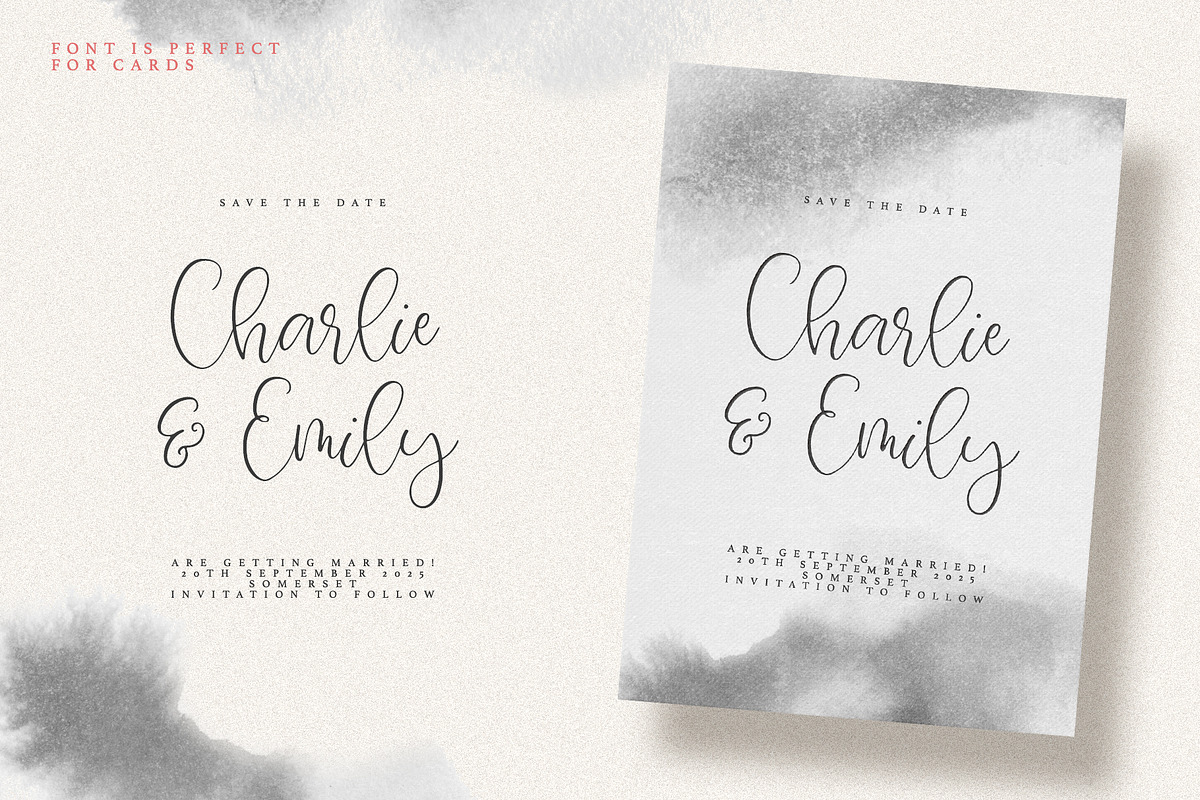
Margaret Script
Margaret it is a Calligraphy chick font with exquisite accents. It is perfect for branding, wedding invitations and invitation cards and many more
Font includes a full set of gorgeous uppercase and lowercase letters, numbers, a large selection of punctuation marks, ligatures & 2 sets of cute swashes
- Regular Script
- Swashes Set 1
- Swashes Set 2